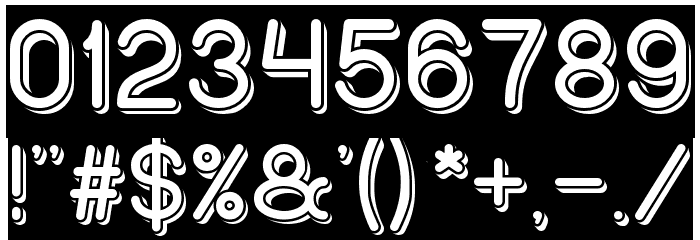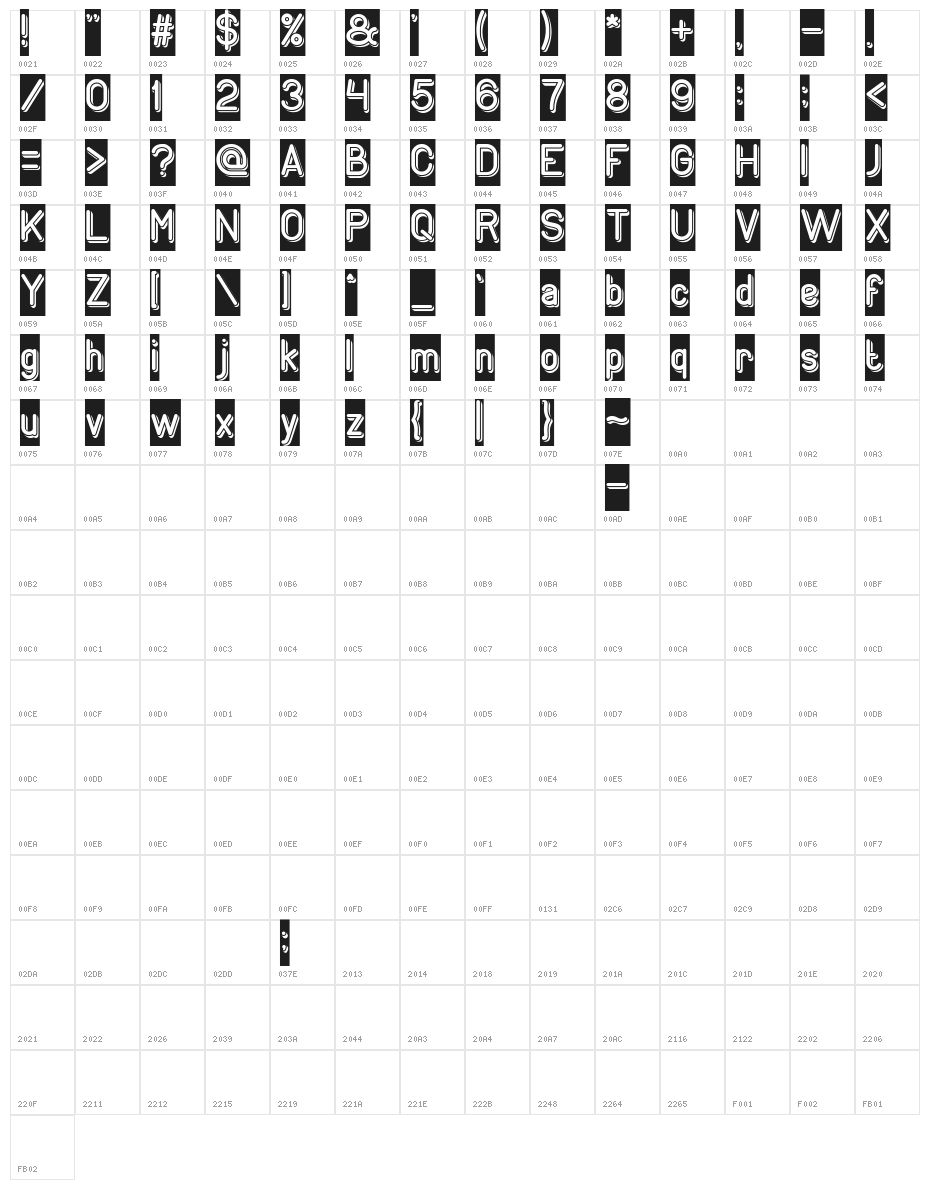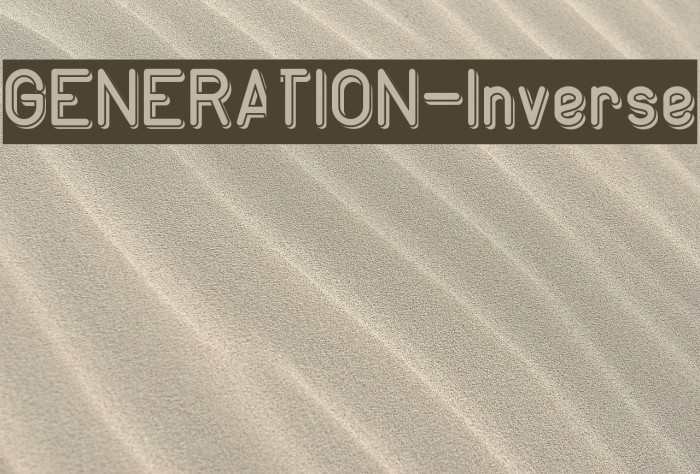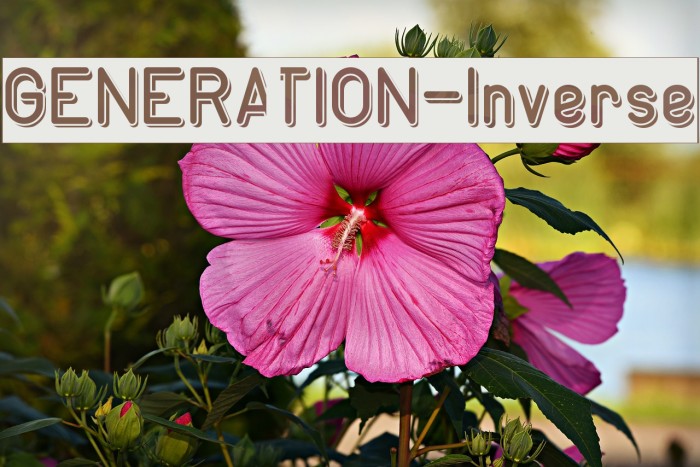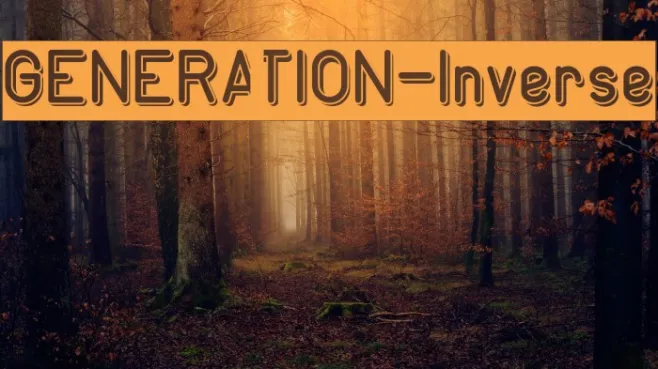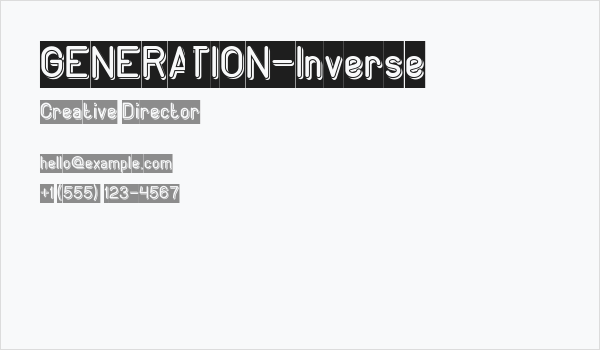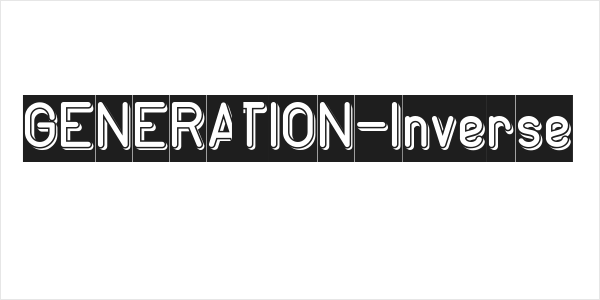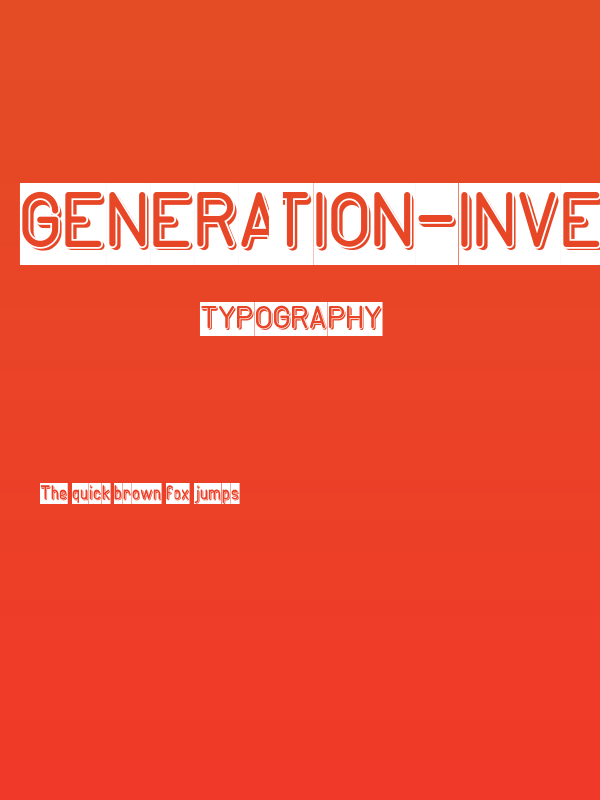
GENERATION-Inverse Font
GENERATION-Inverse Description
This font features a bold, outlined style with a modern and playful aesthetic. The characters are designed with a hollow center, creating a striking visual effect that stands out against any background. The uppercase and lowercase letters maintain a consistent width, providing a balanced appearance. Numbers and special characters are crafted with the same bold outline, ensuring uniformity across all elements. The font's unique design makes it suitable for eye-catching headlines and creative projects. Its clear and legible style is perfect for conveying a sense of fun and innovation.